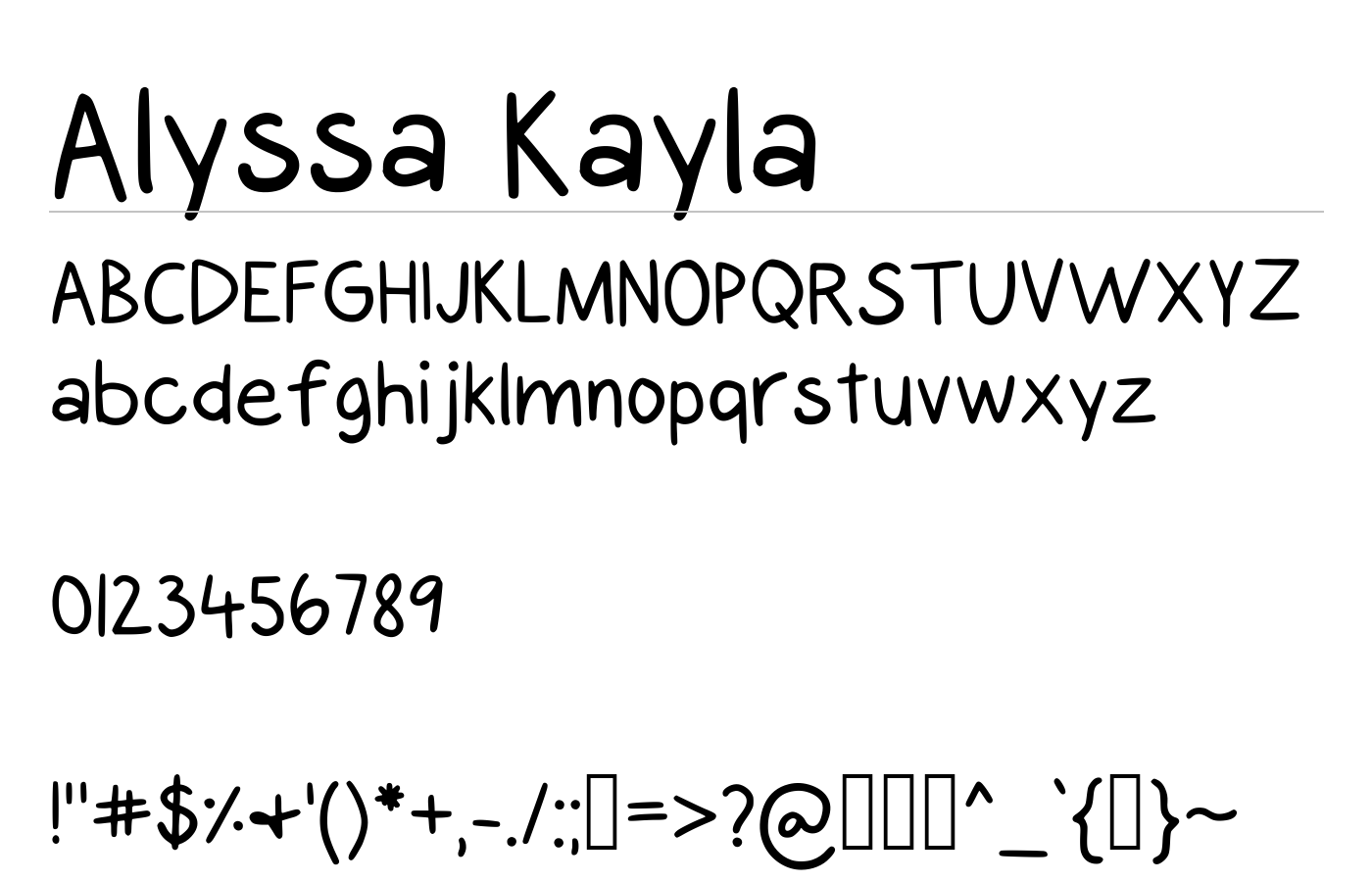
Alyssa Kayla is a playful, casual sans serif font that mimics a neat, handwritten style with rounded, friendly letterforms and moderate x-height. Its light weight and slightly irregular strokes give it a warm, approachable feel, making it perfect for informal designs, children's materials, or creative branding that seeks a personal touch. This font works well in headlines, invitations, and digital content where a relaxed, charming look is desired.
Alyssa Kayla Font
About Alyssa Kayla Font